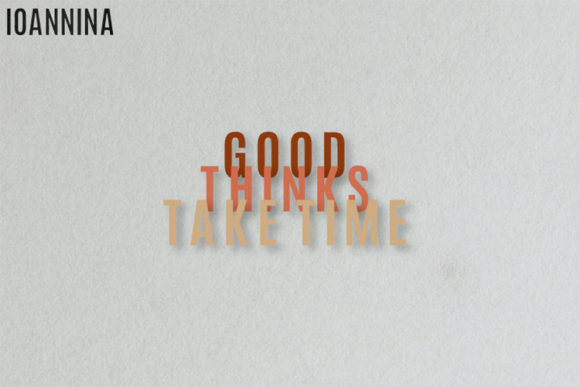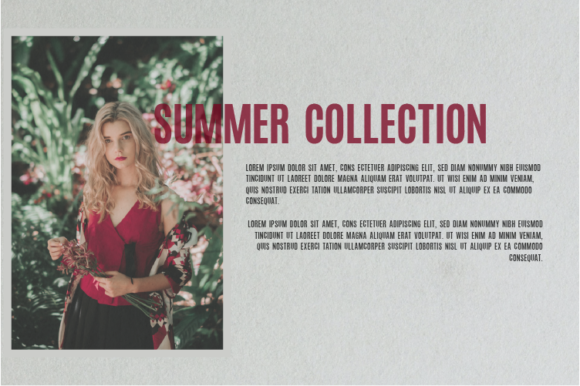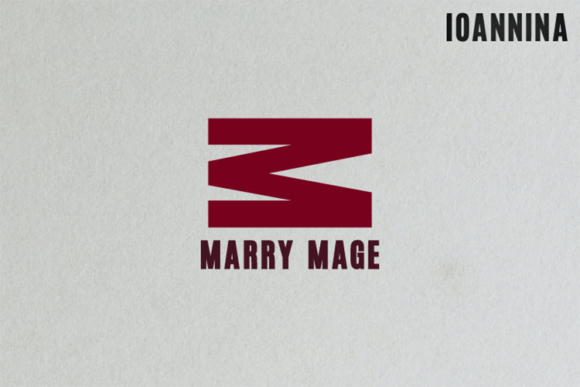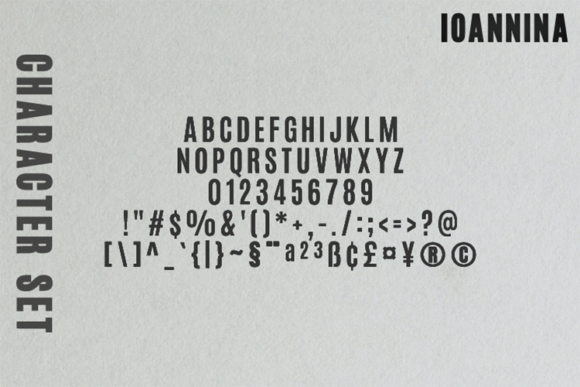
Ioannina Family Font – Free Download
Introduction to Ioannina Family Font
Ioannina is the strong sans serif typcae with a vintage touch.
Get inspired by its bold appearance .
Key Features of Ioannina Family Font
Why Choose Ioannina Family Font?